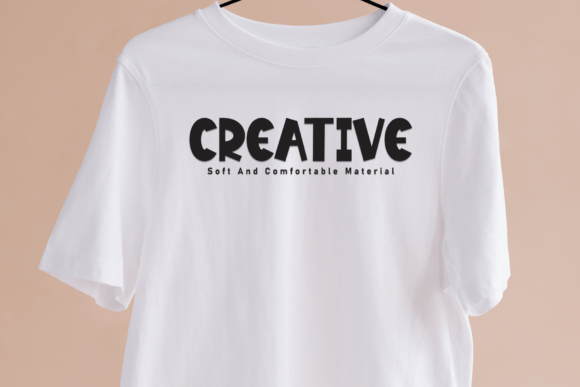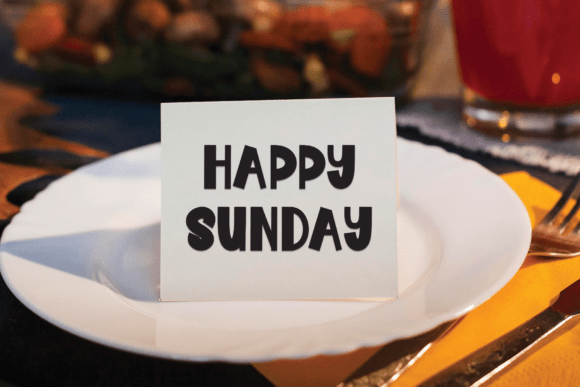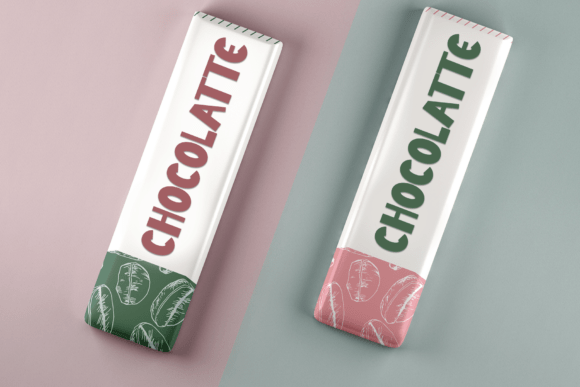
Introduction to Rainbow Winter Font
Introduce an element of mesmerizing charm to your creative ventures with this irresistible hand-penned display font.
Exuding warmth and friendliness, its playful subtleties instantly turn every design into a visually pleasing masterpiece It’s simply the ideal font for breath-taking wedding invites, heartwarming cards or any creation craving a sprinkle of whimsical charm.
Key Features of Rainbow Winter Font
Why Choose Rainbow Winter Font?
Rainbow Winter Font offers exceptional quality and versatility, making it a valuable addition to your design toolkit. Whether you’re creating for personal projects or commercial use, Rainbow Winter Font delivers professional results.